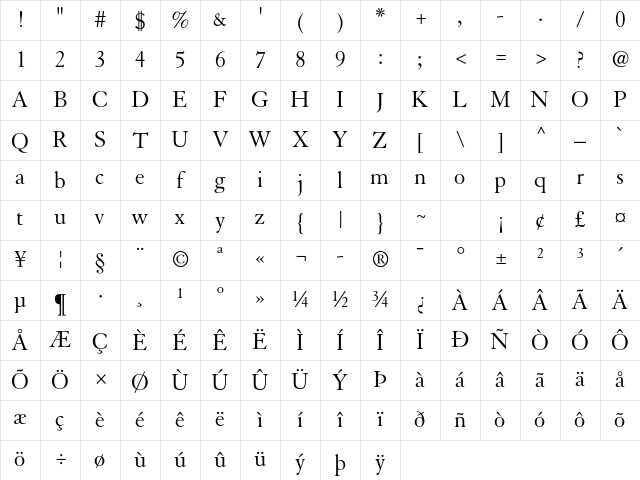
Granjon LT Std Roman
Designer: George W. Jones
Design Context for Granjon LT Std
Granjon LT Std is a composed and adaptable typeface that performs quietly and consistently across a wide range of design contexts. Its slender proportions lend an understated elegance to any composition.